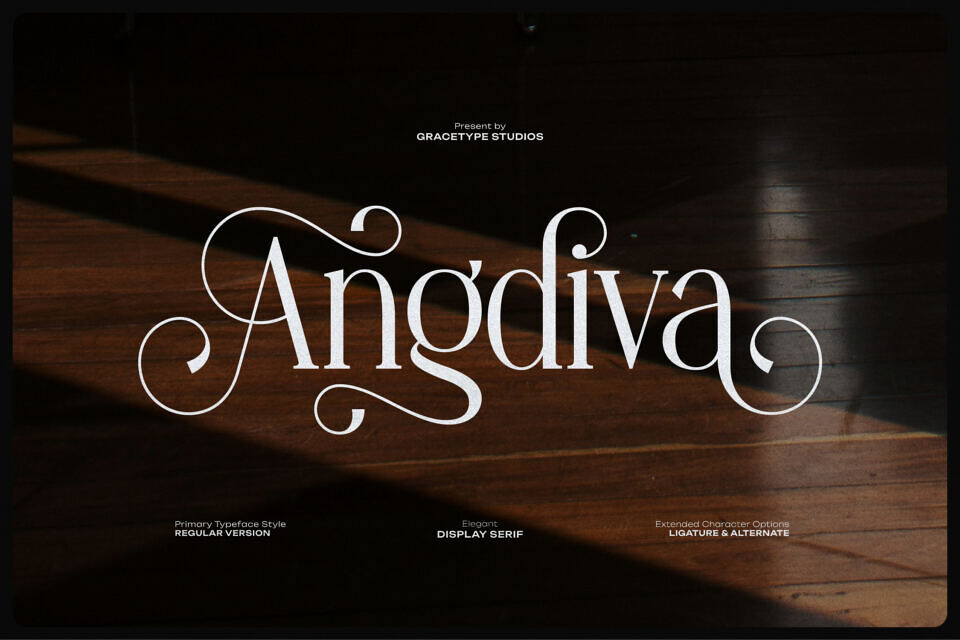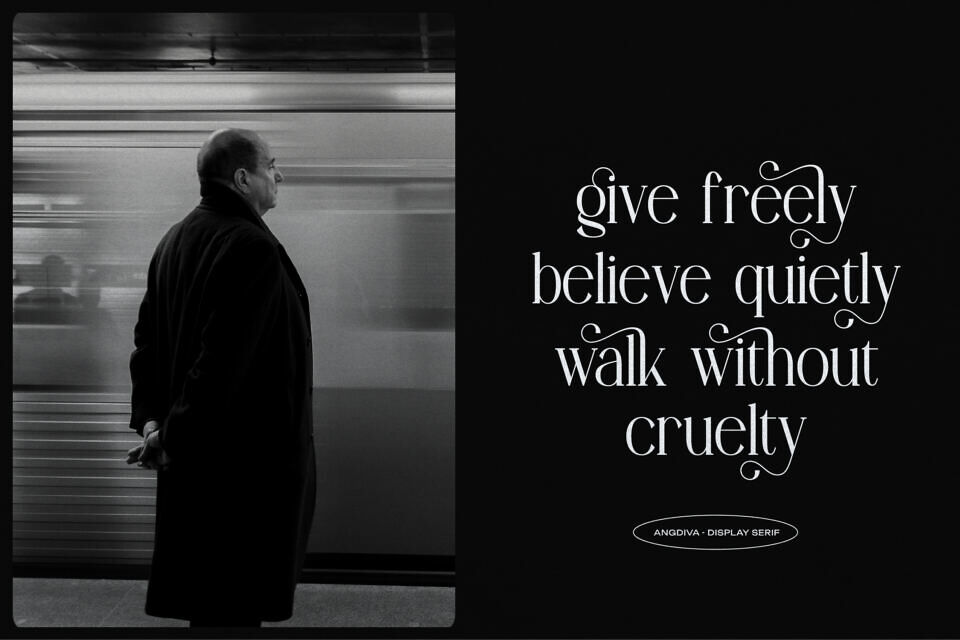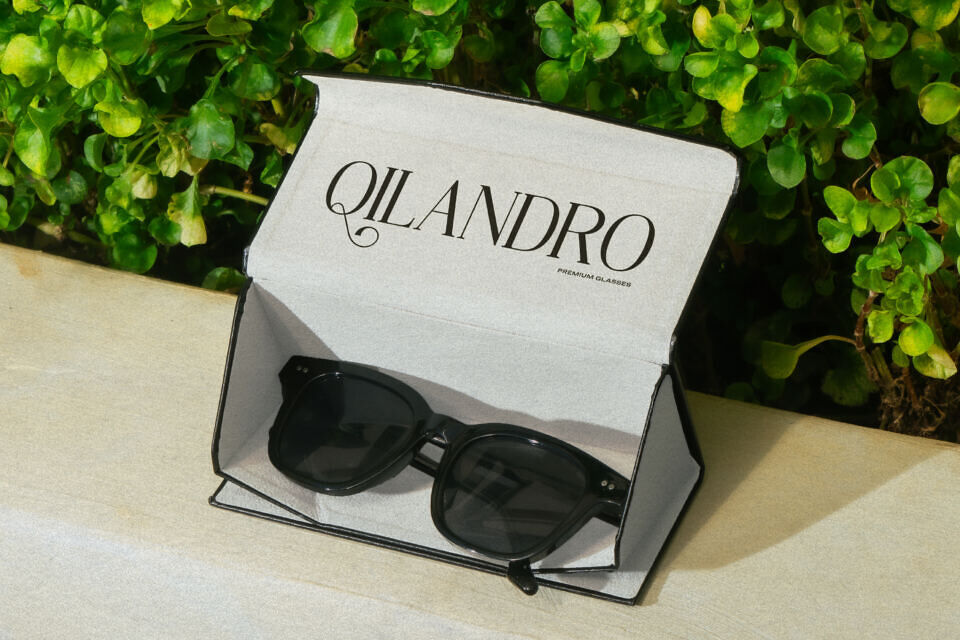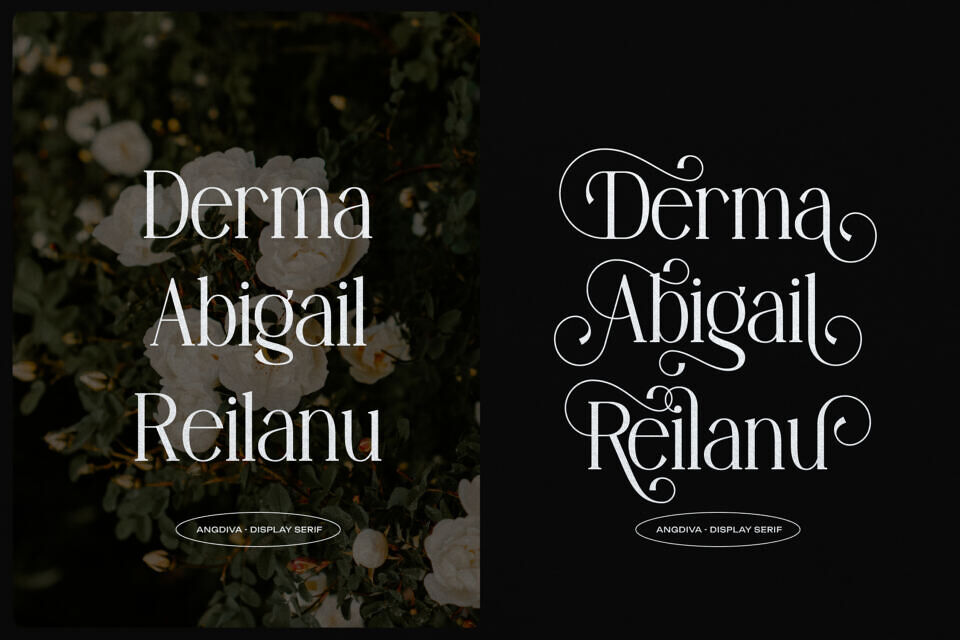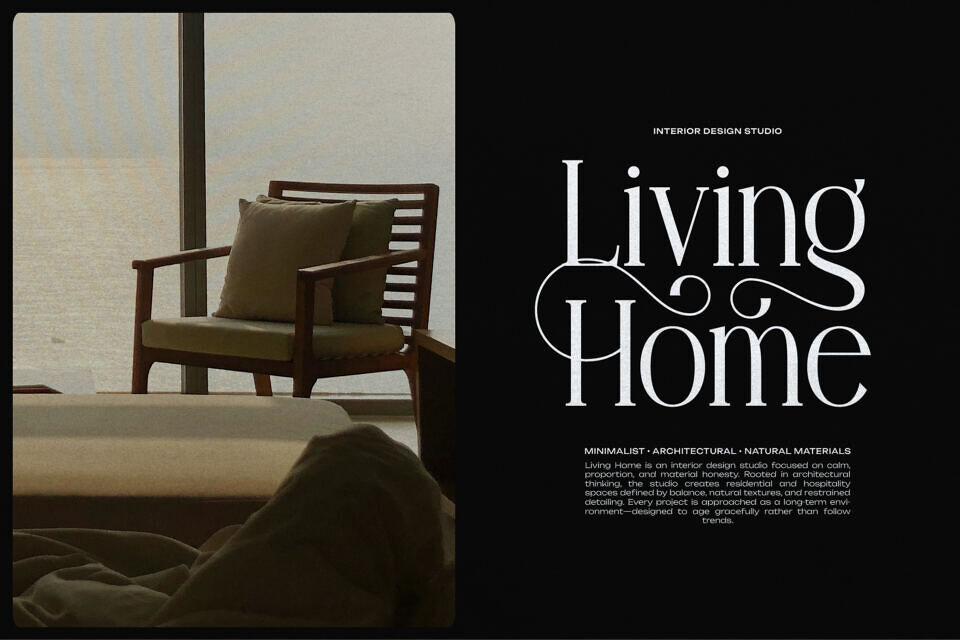
The Angdiva font seamlessly blends classic elegance with modern flair. Its high-contrast strokes and sweeping flourishes turn ordinary letters into stunning art pieces.
Ideal for luxury applications, it offers extended characters and intricate ligatures for unique wordmarks. Use it to elevate brands in high-end industries like perfume, jewelry, or hospitality, instantly boosting their perceived value and visual appeal.